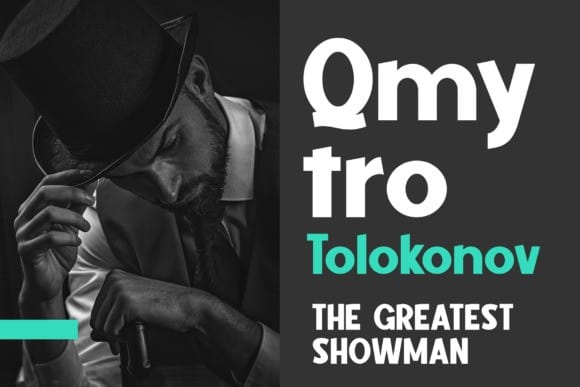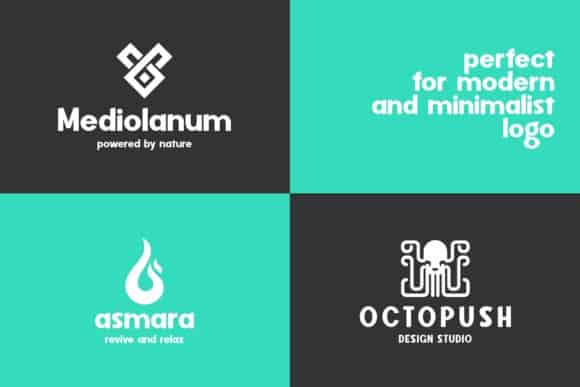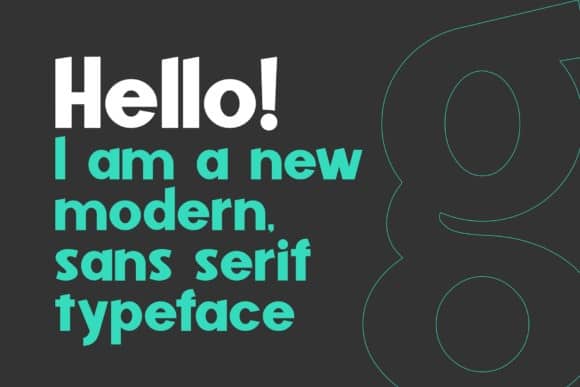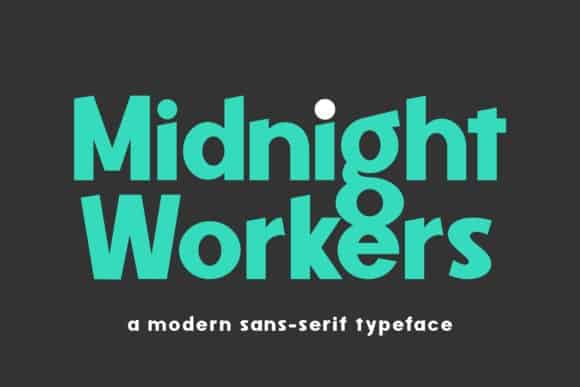
Midnight Workers Sans Serif Font is a geometrical Sans Serif with subtly rounded edges. With its large x-height and round features it’s both legible and friendly. Made from font designer named figuree studio. This Font is a modern and unique sans-serif font. It can easily be matched to an incredibly large set of projects, so add it to your creative ideas and notice how it makes them stand out!